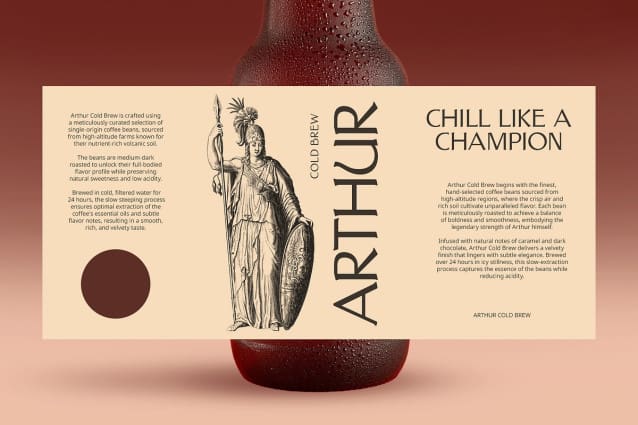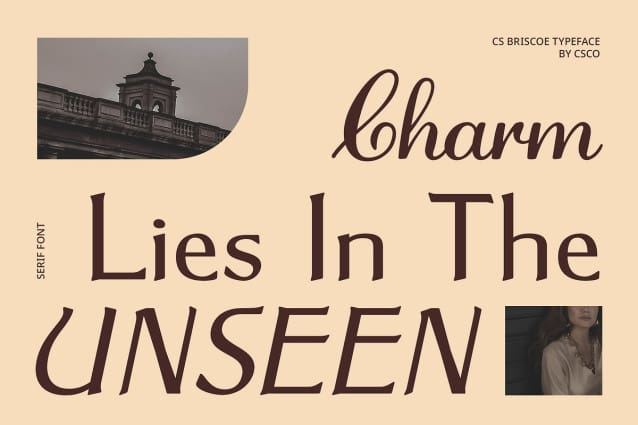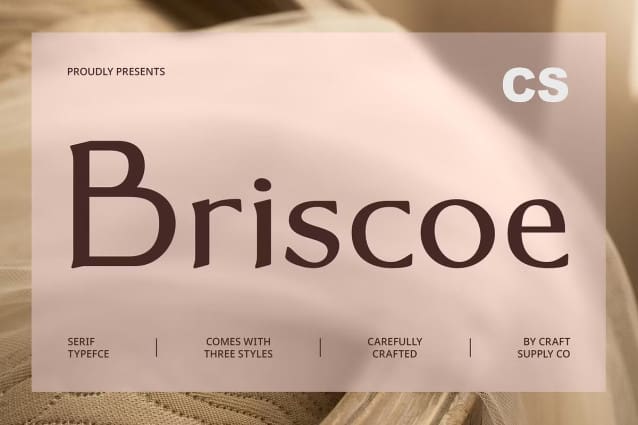
CS Briscoe Font
CS Briscoe Font is a modern serif font that masterfully blends elegance with classic charm, offering a distinctive and versatile typeface for a wide range of design projects. Characterized by bold, well-defined lines and intricate, refined details, this font strikes a perfect balance between strength and sophistication. Its graceful curves and balanced proportions evoke a sense of luxury and authority, making it an ideal choice for designs that aim to leave a lasting impression.
Perfect Harmony of Style and Functionality The thoughtfully designed letterforms of CS Briscoe exude a timeless aesthetic, seamlessly combining traditional elements with modern sensibilities. Its clean, bold structure ensures legibility while maintaining an artistic edge, allowing it to stand out in branding, editorials, and creative projects alike. The serif design adds a touch of formality, making it suitable for upscale and professional applications, while its polished appearance enhances its versatility.
Enhance Any Project with a Touch of Luxury CS Briscoe is perfect for branding projects that demand a sense of exclusivity, such as luxury products, premium packaging, and corporate identities. It shines in editorial layouts, lending sophistication to magazines, brochures, and other printed materials.